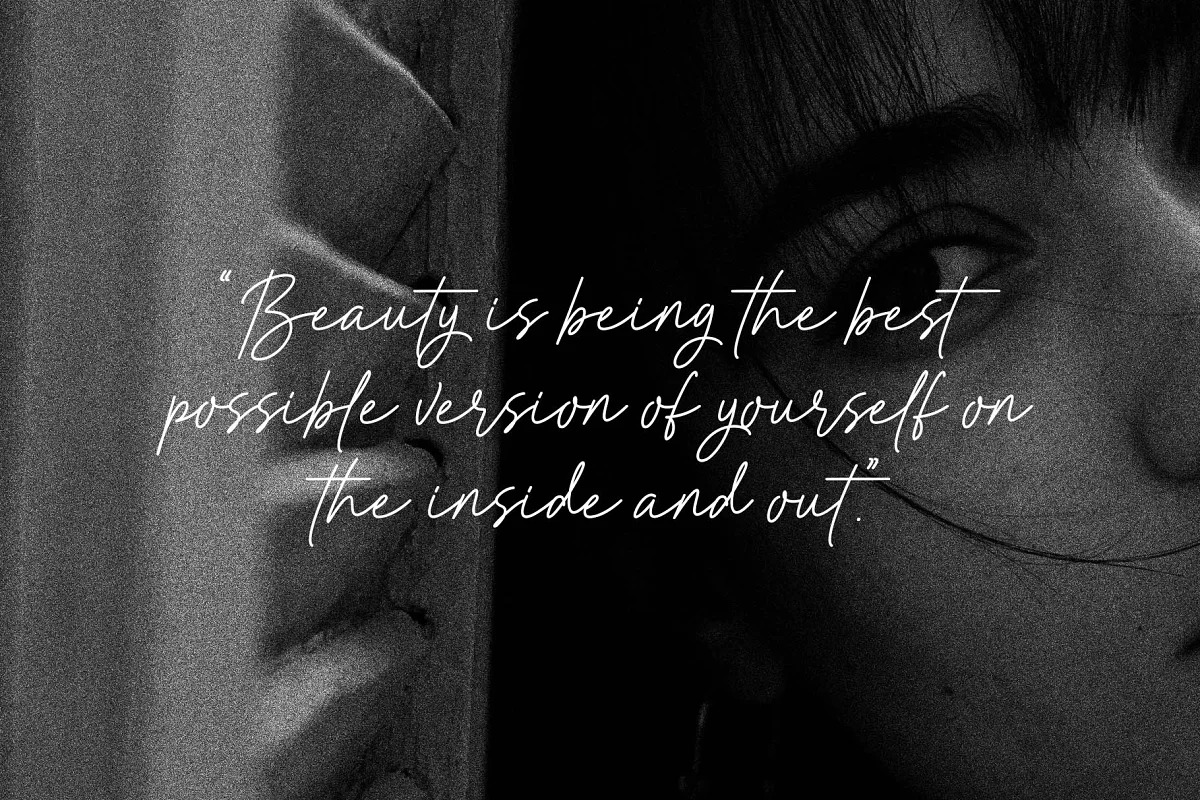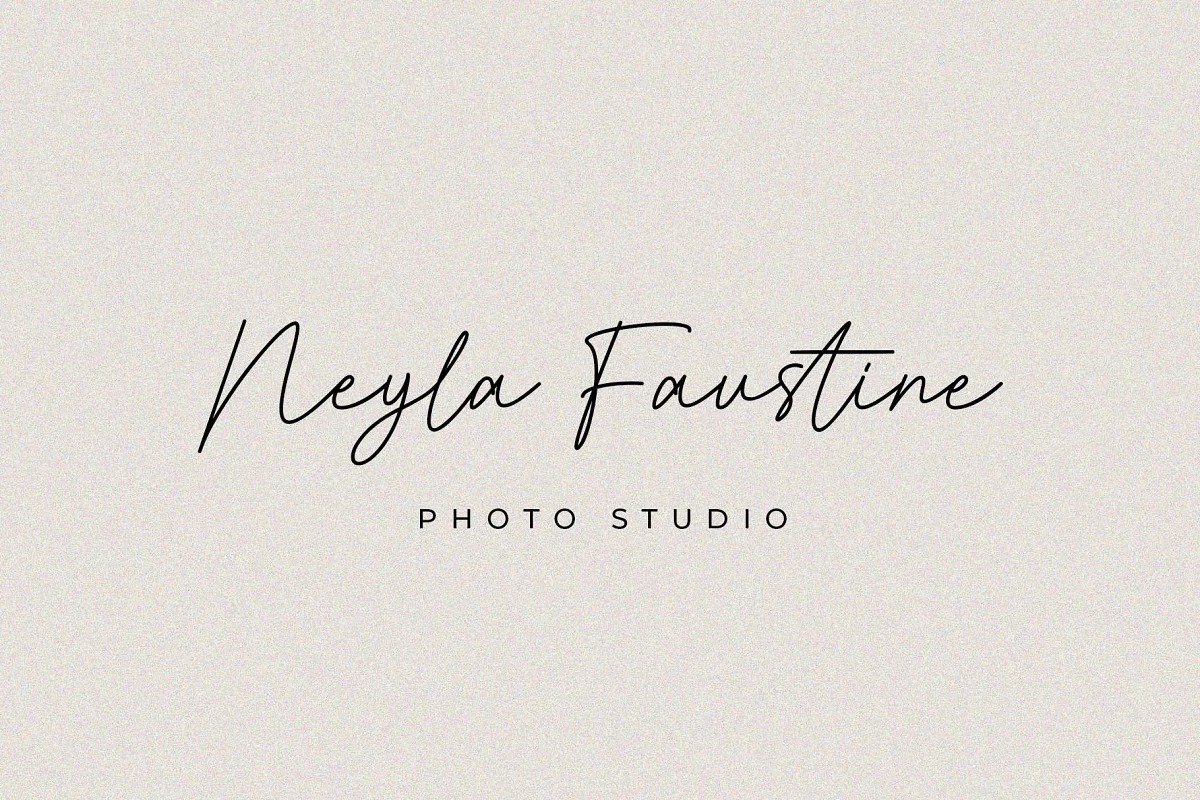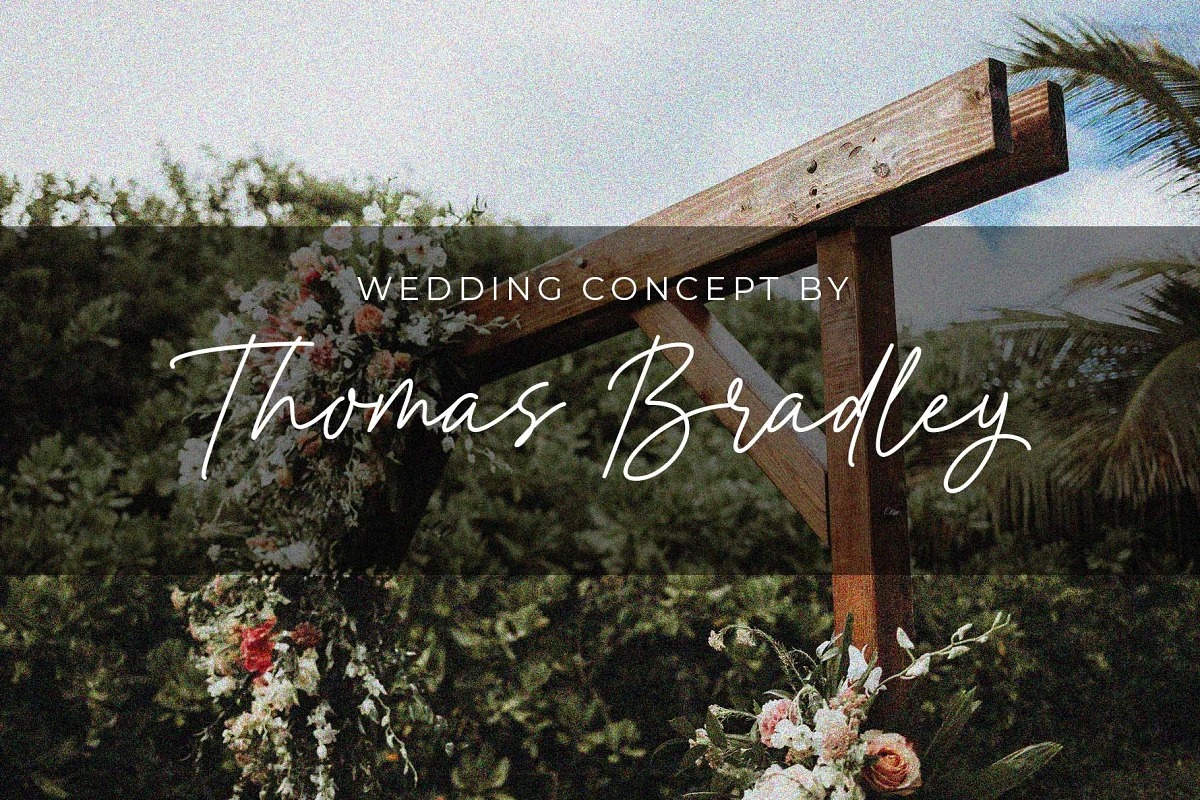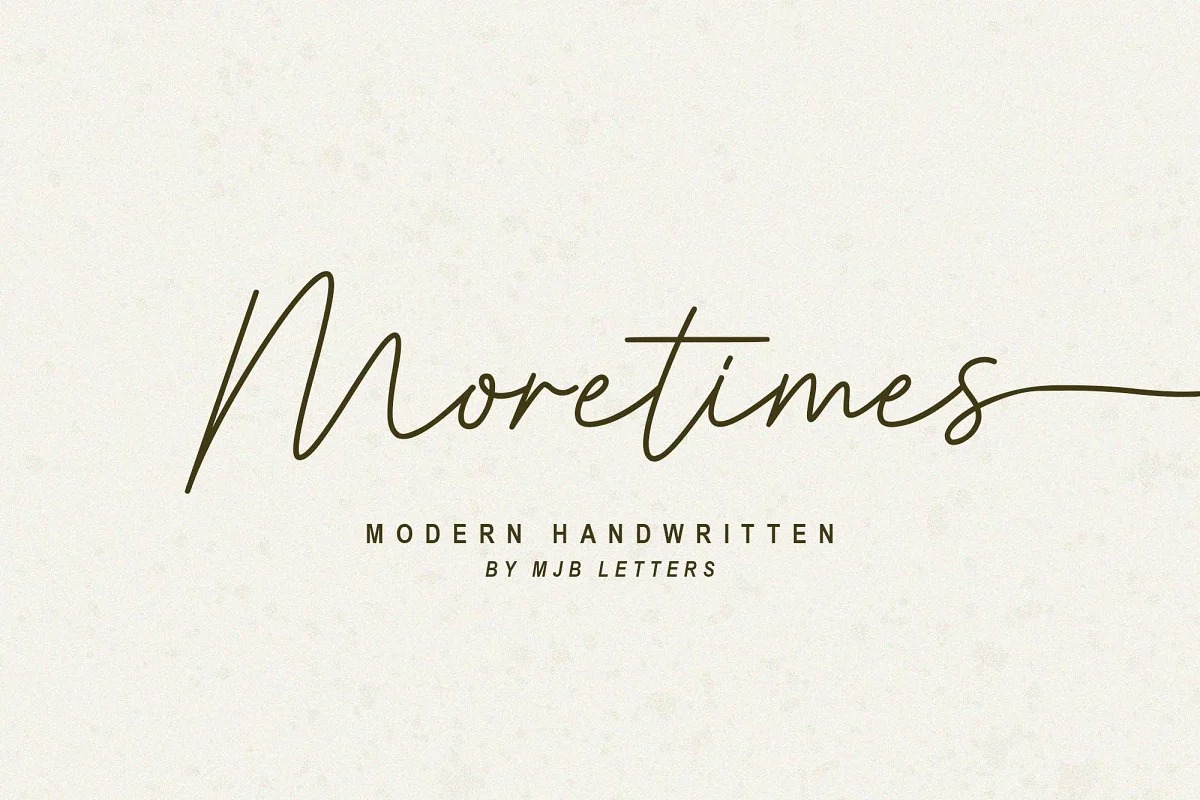
Moretimes Font
Moretimes Handwritten Font
This is a stunning signature font created by MJB Letters with a beauty twist, light and elegant script, is the ideal typeface touch to any design project. Each uppercase and lowercase letter has an alternative that gives you more options, and you can customize the design as you like.
This font is perfect for logo design, quotes, wedding invites, branding, signature, watermark, fashion, and more.